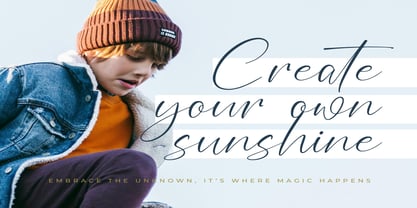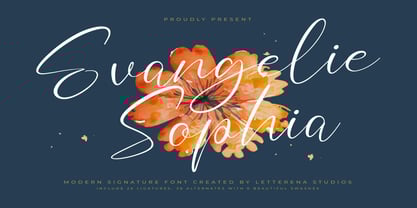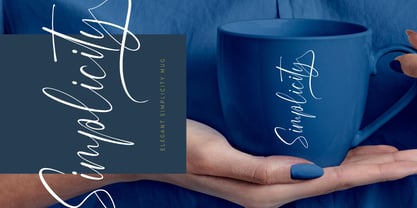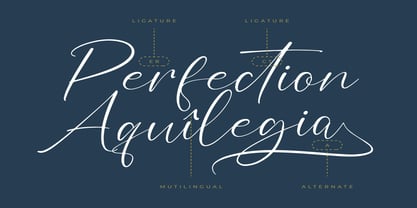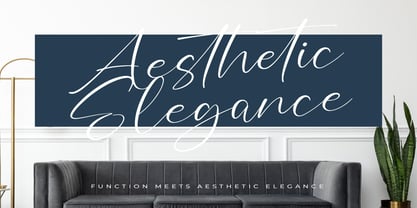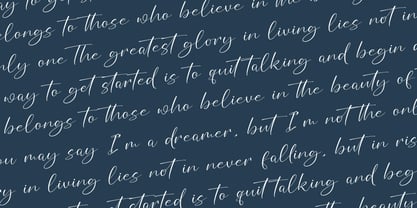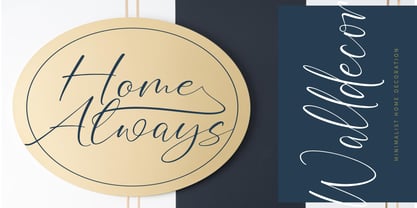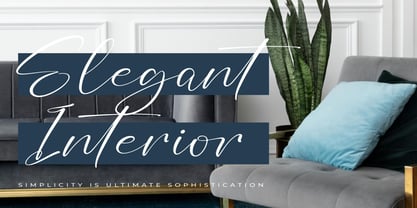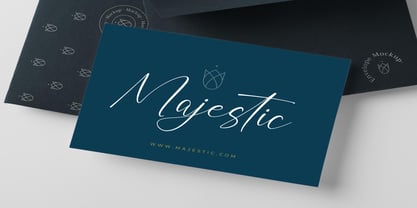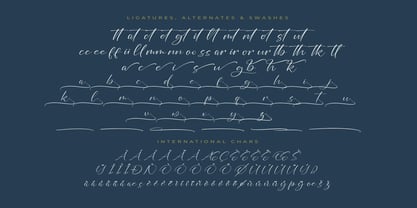
Evangelie Sophia
by Letterena Studios
The Evangelie Sophia Font Family was designed by Heru Utama Putra and published by Letterena Studios. Evangelie Sophia contains 2 styles and family package options. More about this family
Evangelie Sophia – Modern Signature Font , from Letterena, is a Luxury Script font, suitable for any projects such as: logos, branding projects, homeware designs, product packaging, mugs, quotes, posters, shopping bags, t-shirts, book covers, name card, invitation cards, greeting cards, label, photography, watermark, special events, and all your other luxury and beautiful projects that need a Luxury Script taste.